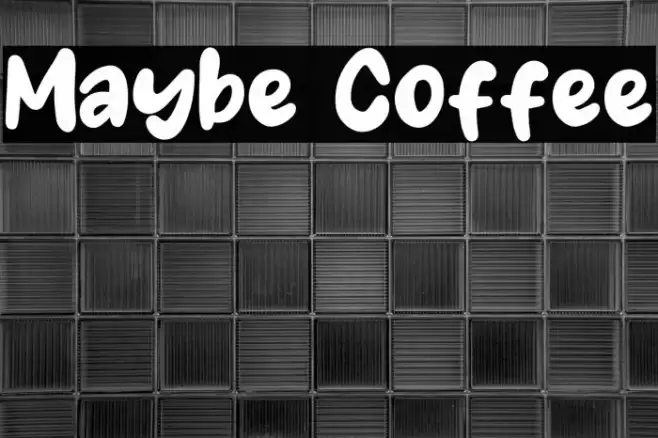
Maybe Coffee Font
Maybe Coffee Description
This playful and bold font features a handwritten style with a casual and friendly appearance. The characters are rounded and slightly irregular, giving it a lively and informal feel. The uppercase and lowercase letters maintain a consistent style, with smooth curves and a slightly exaggerated thickness that adds to its charm. The numbers and special characters follow the same design principles, ensuring a cohesive look throughout. This font is perfect for projects that require a personal touch or a fun, approachable vibe.
A playful, bold handwritten font with a casual and friendly appearance from Cartoon fonts.
- Font: Maybe Coffee
- Proposed Projects: Ideal for greeting cards, children's books, playful branding, and social media graphics.
- Overall Style: Playful